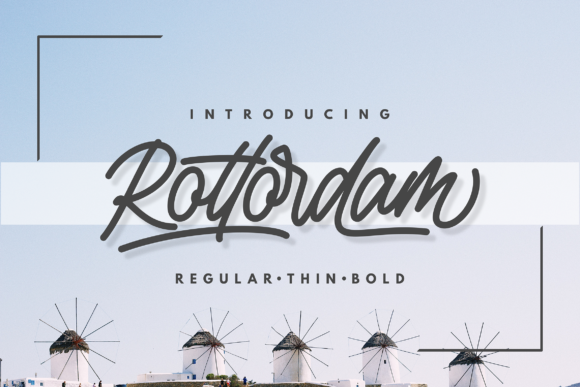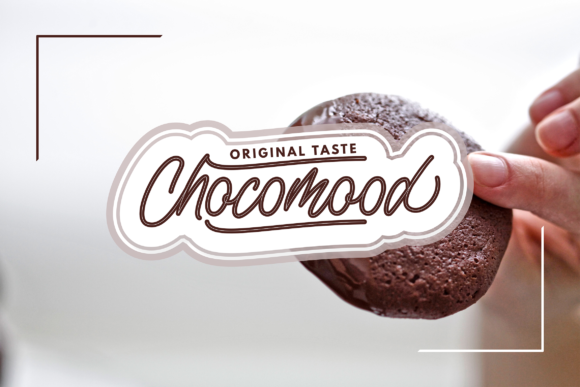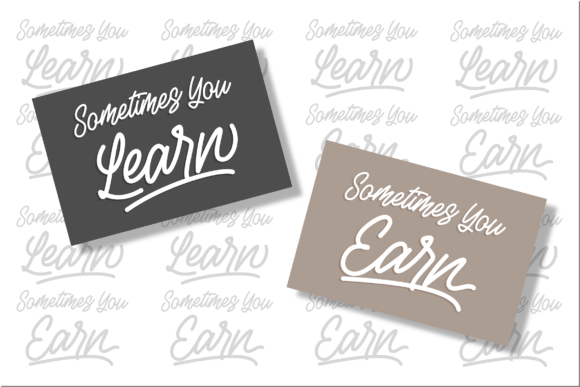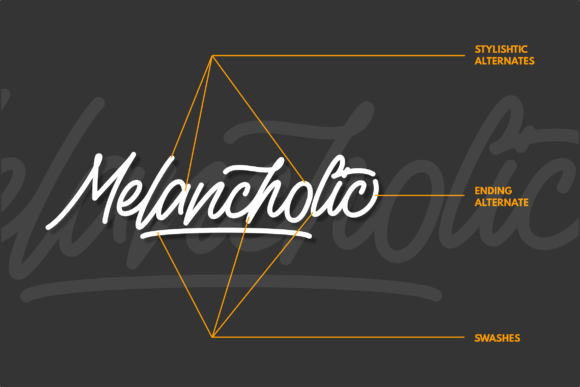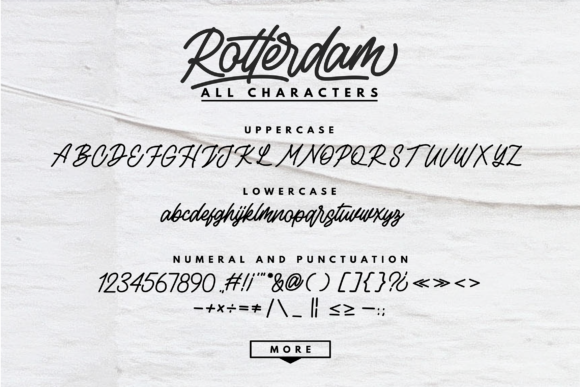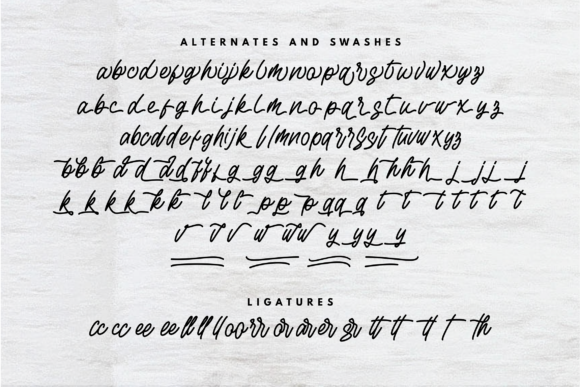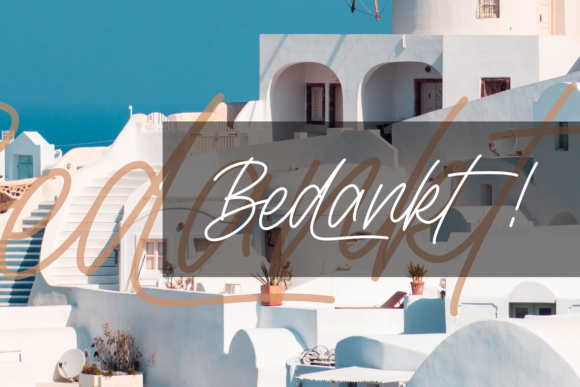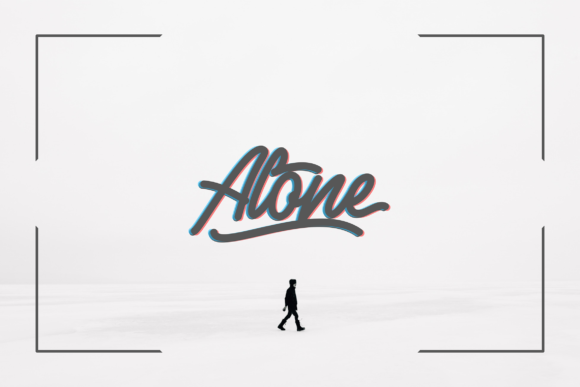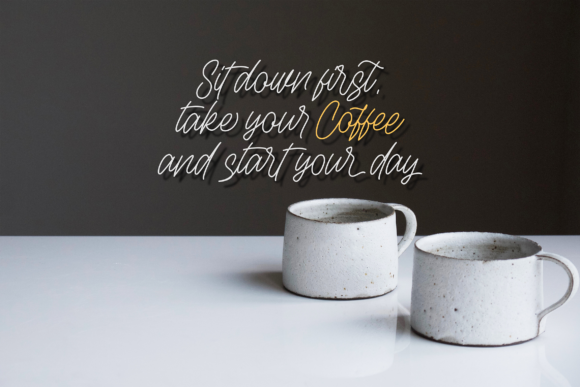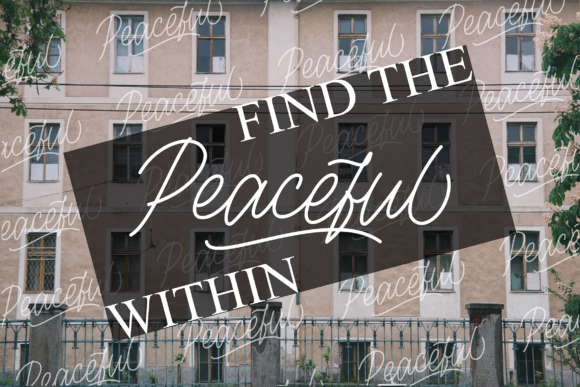
Rottordam Font
About Rottordam Font
Rottordam is a beautiful and light handwritten font with a modern feel. It will add an authentic spark to any design project.